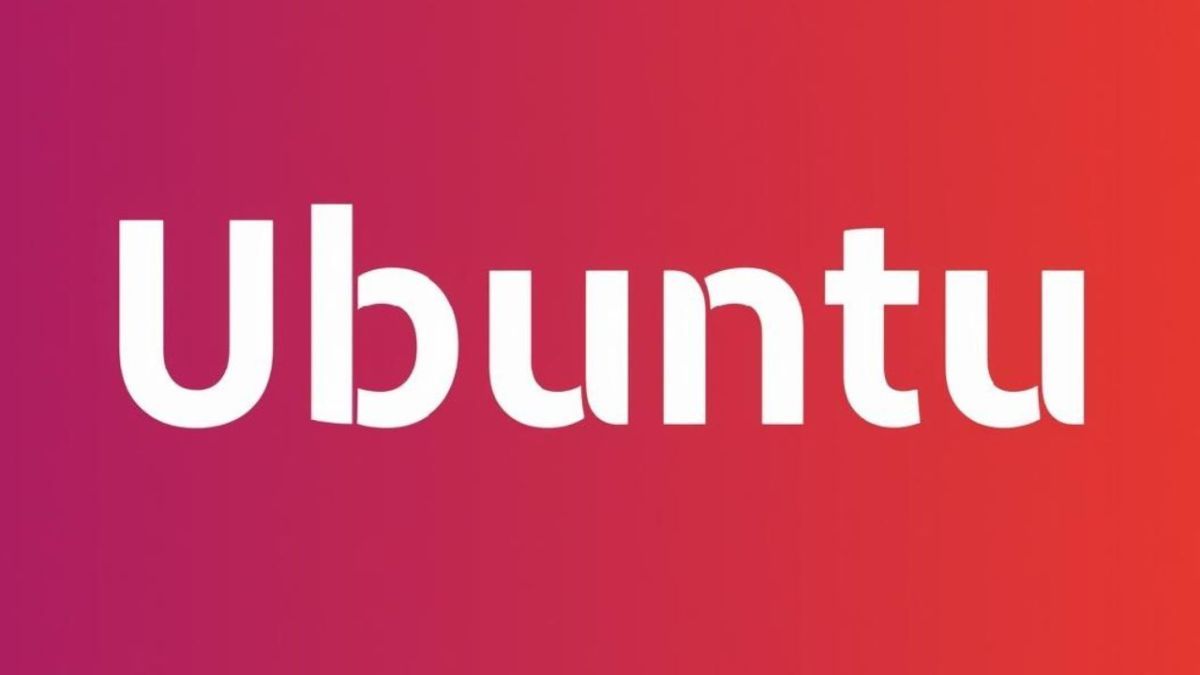
๐Ÿงก Ubuntu Font Generator Create clean, modern Ubuntu typography with Google’s iconic sans-serif font. Perfect for websites, UI design, and readable modern text. ๐Ÿ”— More Font Tools: Fancy Text | Calligraphy | Gothic Font | Typewriter Enter Your Ubuntu Text Hello Ubuntu โœ๏ธ Typography ๐ŸŽจ Styles โœจ Effects Ubuntu Font Family Ubuntu (Regular) …